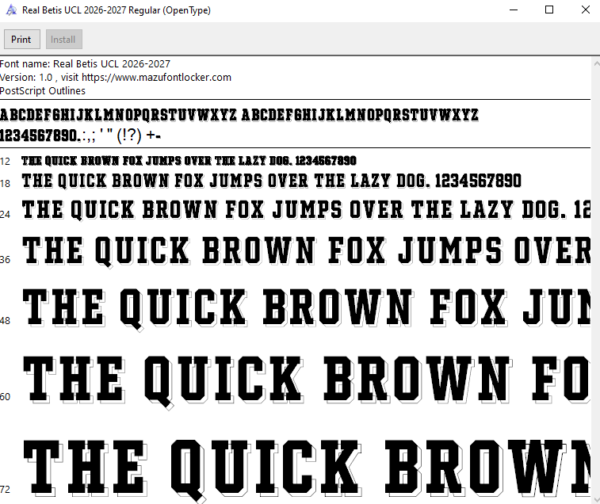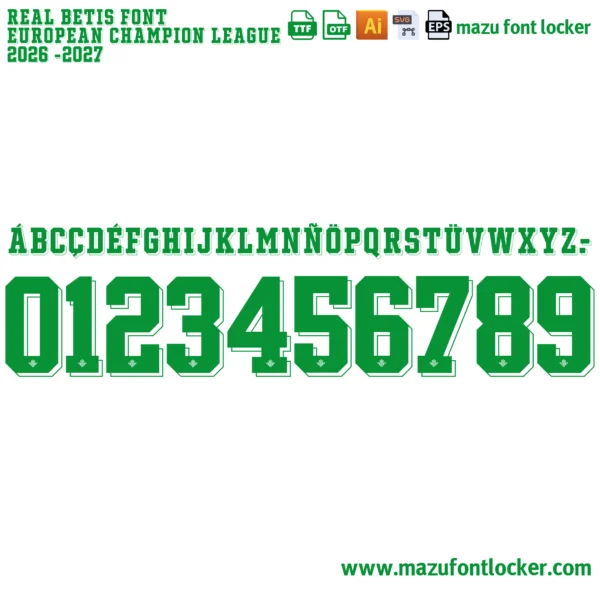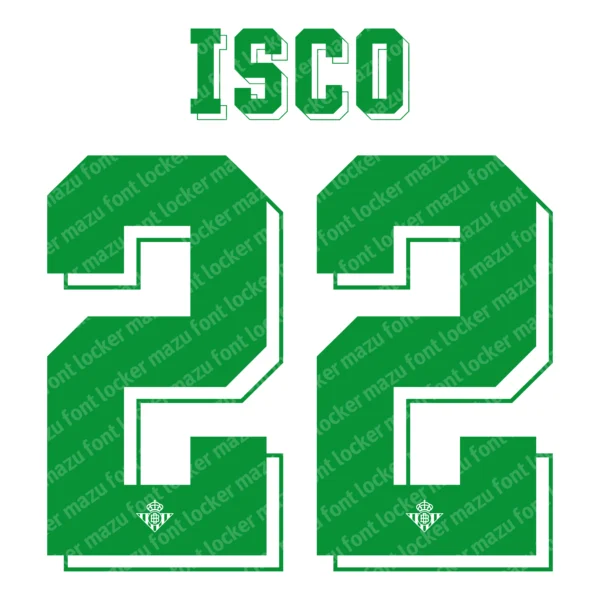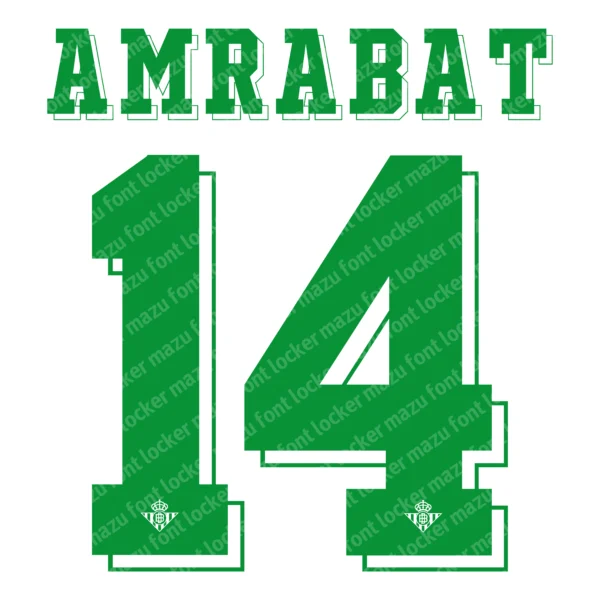
Real Betis 2026-2027 Font Vector – Unstoppable Passionate Verdiblanco Warrior
Real Betis Font Kit 2026/2027 – Authentic La Liga Typeface
The Real Betis 2026-2027 Font is a premium typeface that accurately recreates the official match lettering worn by Real Betis during the 2026/2027 La Liga season. This high-quality font kit captures the bold, elegant, and distinctive typography that reflects the club’s proud identity and passionate spirit.
Designed for professional designers and passionate Real Betis fans, the Real Betis 2026-2027 Font delivers perfect authenticity for creating jersey mockups, fan merchandise, matchday posters, social media graphics, and much more. It perfectly complements the club’s iconic green-and-white striped kits from this season.
Why Choose Real Betis 2026-2027 Font
This font stands out because of its sharp details and strong presence. Every letter and number is crafted to match the exact style used on the players’ shirts during the 2026-2027 season. Whether you are making modern shirt templates or celebrating Betis culture, the Real Betis 2026-2027 Font gives your designs that authentic La Liga look from the mid-2020s.
The letterforms in the Real Betis 2026-2027 Font are tall, bold, and highly readable. The strokes have a balanced weight that looks powerful and professional on the back of jerseys while maintaining excellent clarity.
The numerals use solid curves and firm edges, giving them a confident and premium appearance. This design ensures great legibility whether used in large print formats, digital mockups, or dynamic video content.
• Full uppercase A–Z and numbers 0–9 in authentic Real Betis 2026-2027 style
• Special Real Betis logo glyph for accurate shirt number detailing
• Create highly realistic La Liga jersey mockups with accurate lettering
• Design vibrant matchday posters, score graphics, and squad announcements
• Produce custom Real Betis merchandise with an authentic football aesthetic
• Includes the exact logo glyph placement used under player numbers